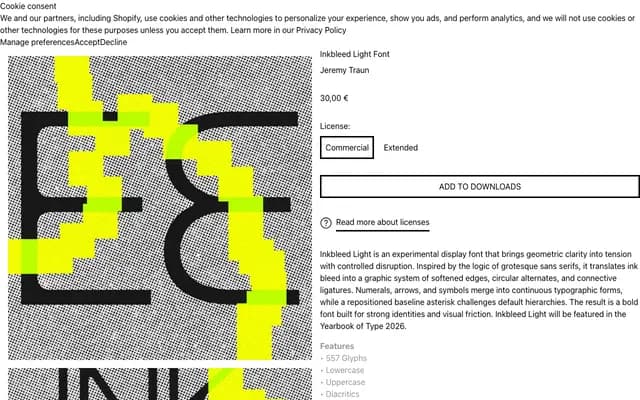
Inkbleed Light Font
A single-weight experimental display face by Jeremy Traun that translates the visual effect of ink bleed into a codified graphic system of softened edges and connective ligatures.
Built on grotesque sans-serif geometry, Inkbleed Light introduces controlled disruption through rounded terminals, circular alternates, and ligatures that bind numerals, arrows and symbols into continuous typographic forms. A repositioned baseline asterisk signals its intent to challenge conventional typographic hierarchy rather than simply decorate it. The face is listed for inclusion in the Yearbook of Type 2026 and is aimed at bold brand identities where visual friction is the point.
Rooted in grotesque sans-serif logic but heavily distorted through an ink-bleed graphic system, softened edges, and connective ligatures that push it firmly into display/experimental territory.